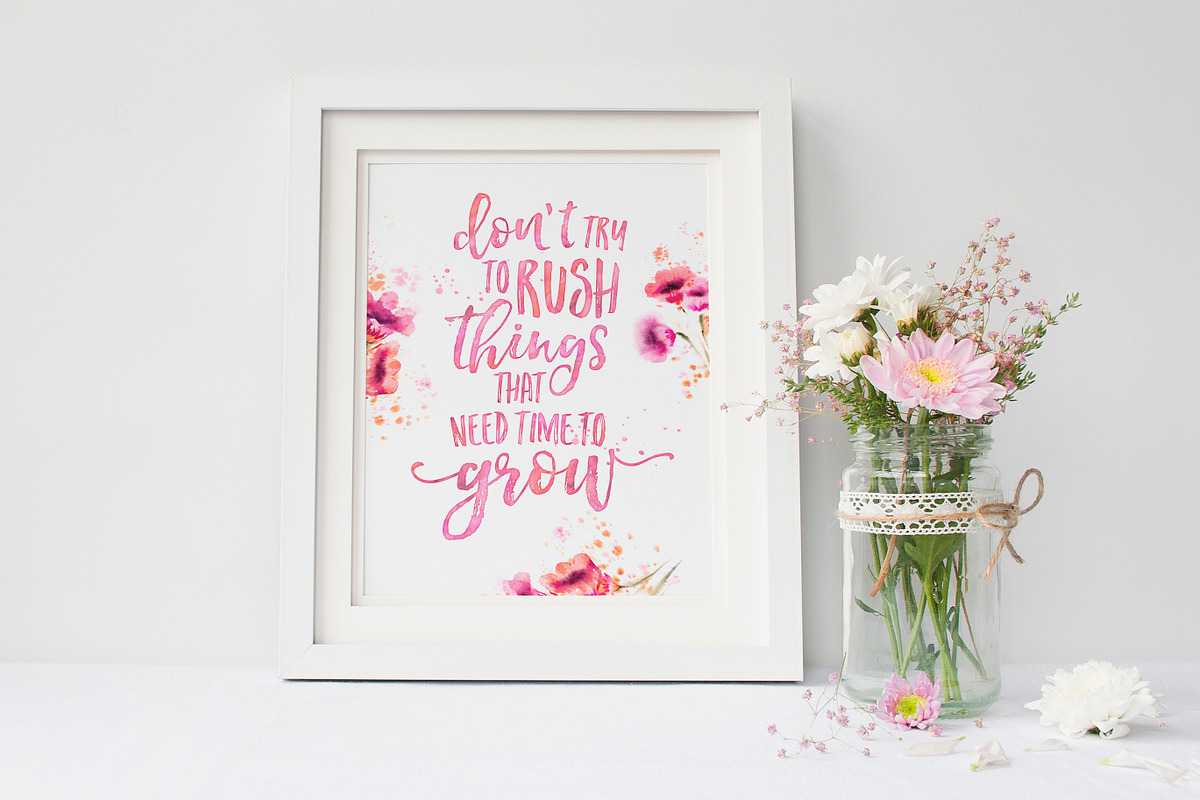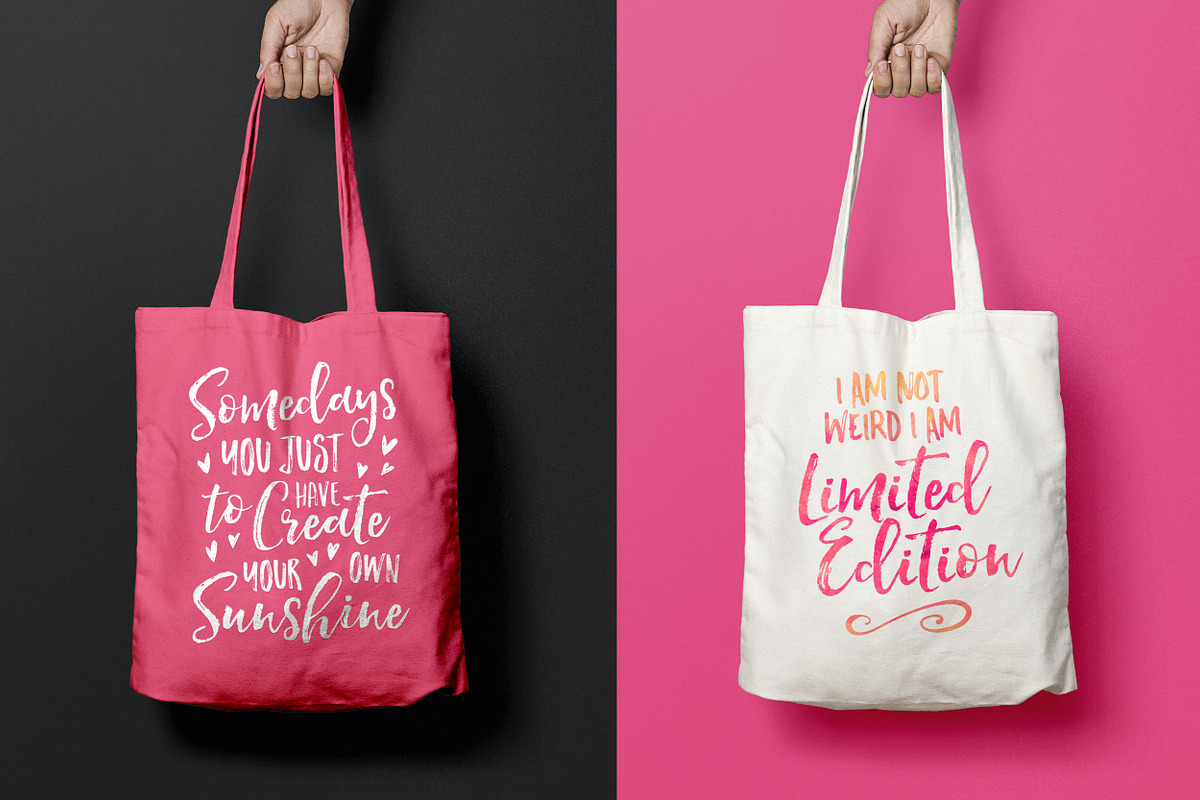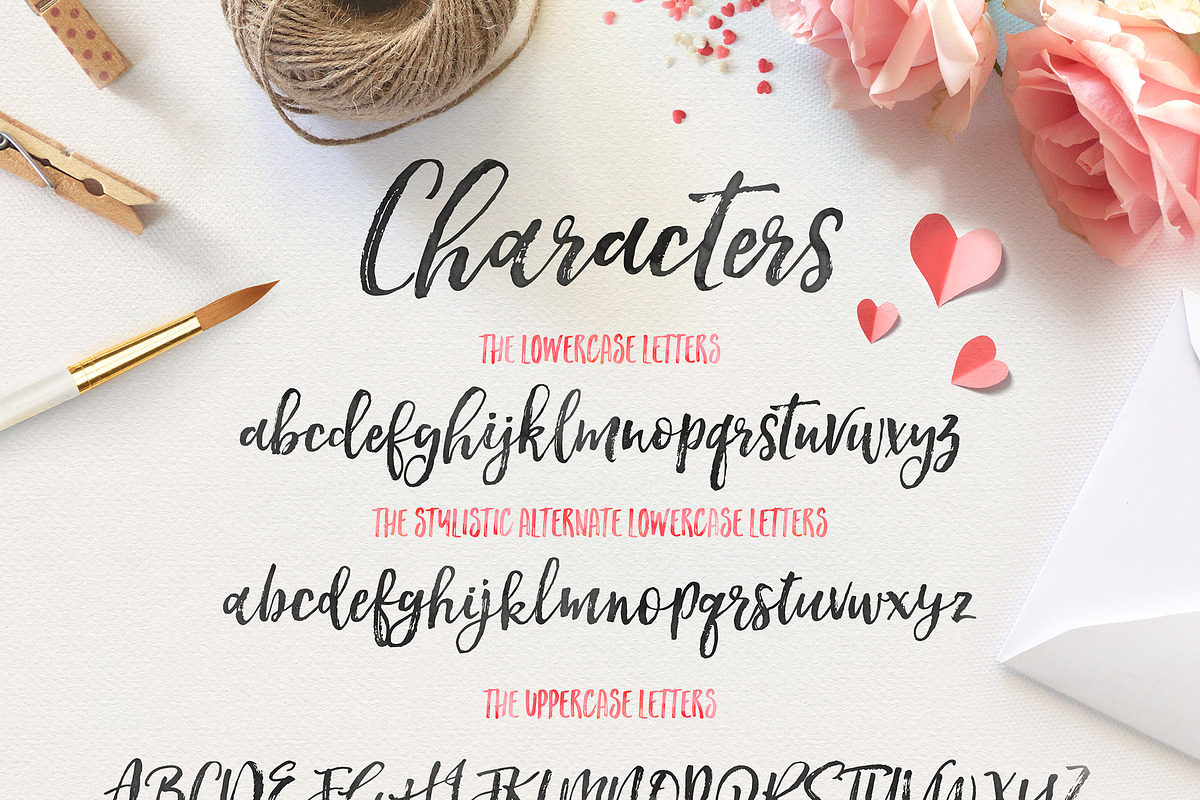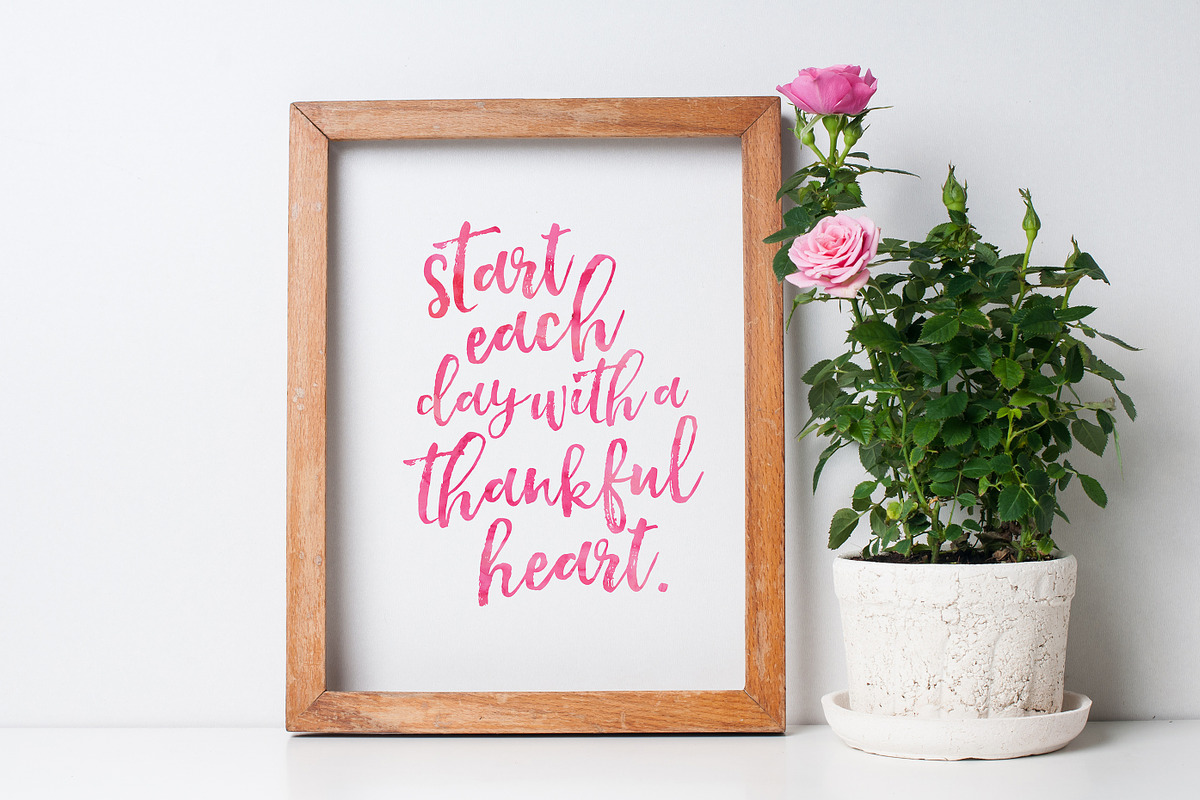
Hello Sunshine Font Duo
Hello Sunshine Font Duo by Nicky Laatz is a font selected for branding, posters, packaging, typography.
- Hello Sunshine Script has a large variety of alternate characters ,allowing you to make each word look completely unique to the next!
- Ligatures are also included also - to bring true authenticity to your design.
- It has multilingual support with accented characters for international users.
Why Hello Sunshine Font Duo is worth a look
Hello Sunshine Font Duo by Nicky Laatz fits naturally into Branding, posters, packaging, typography.